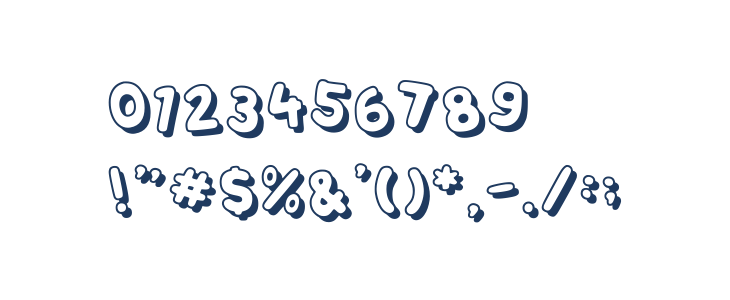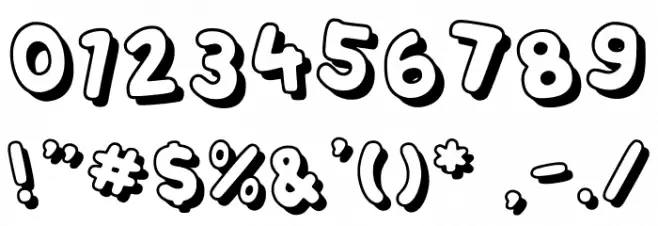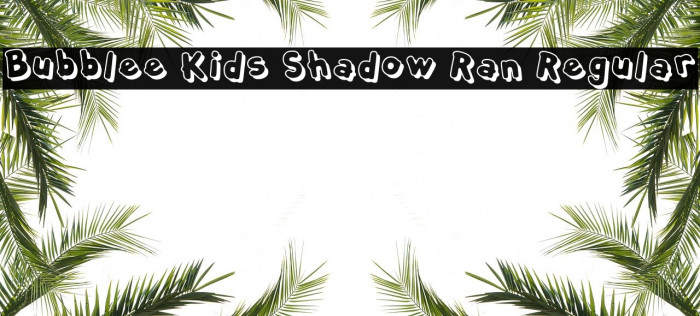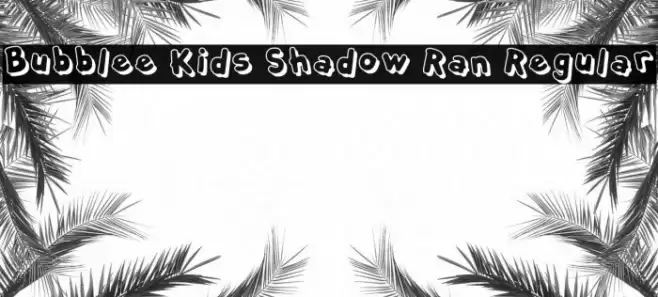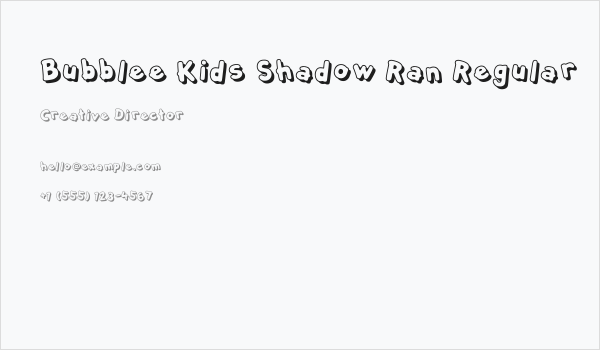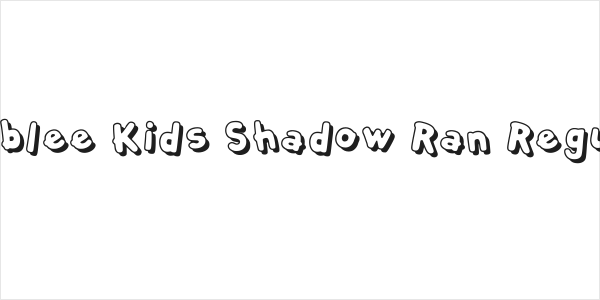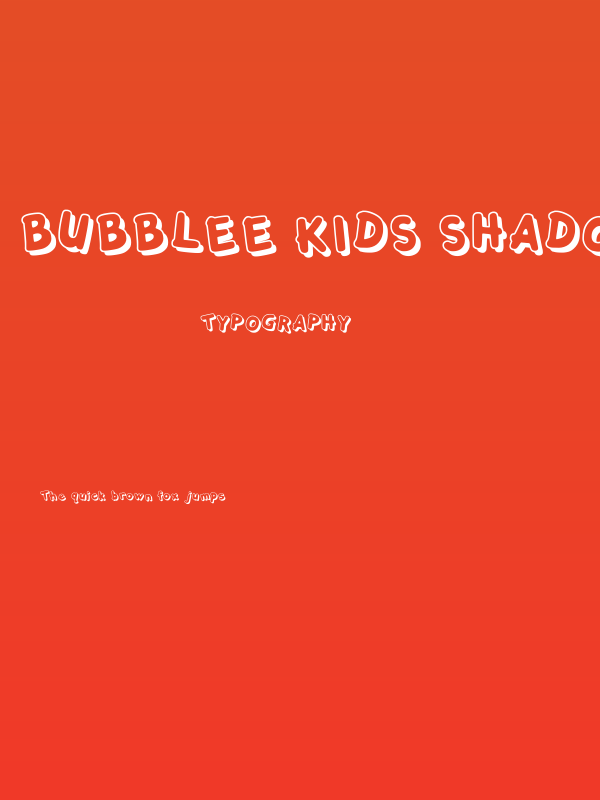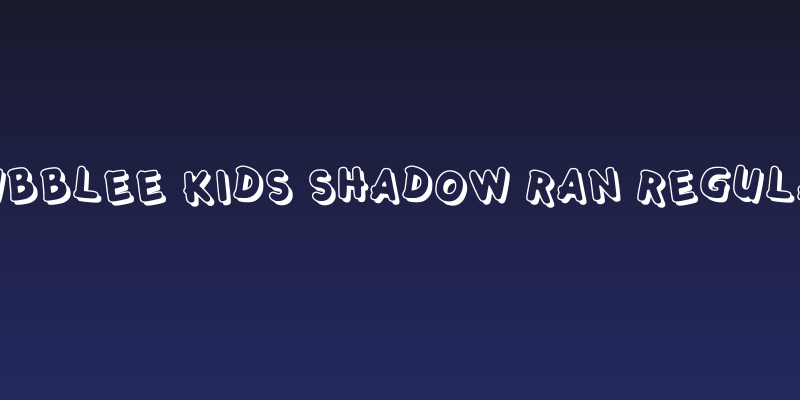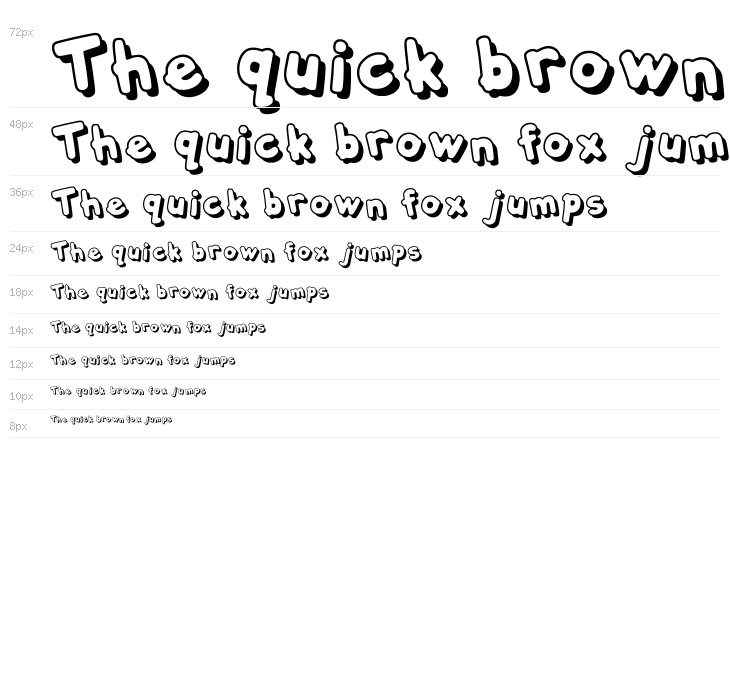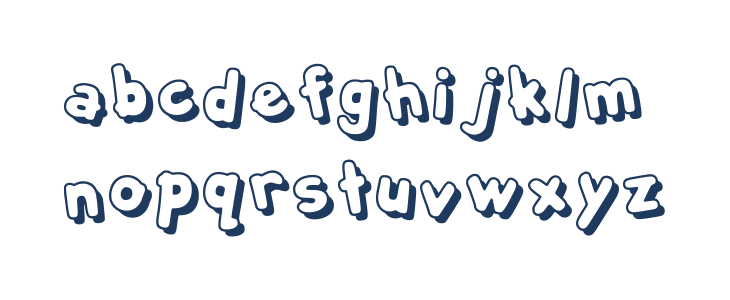
Bubblee Kids Shadow Ran Regular Font
Bubblee Kids Shadow Ran Regular Description
This playful and whimsical font features bold, rounded letters with a distinct shadow effect, giving it a three-dimensional appearance. The characters are designed with a bubbly, cartoonish style, making them ideal for children's projects or any design that requires a fun and lively touch. The uppercase and lowercase letters maintain a consistent style, with exaggerated curves and a friendly demeanor. Numbers and special characters are equally expressive, ensuring a cohesive look across all text elements.
| Proposed Projects | Ideal for children's books, playful posters, birthday invitations, and educational materials. |